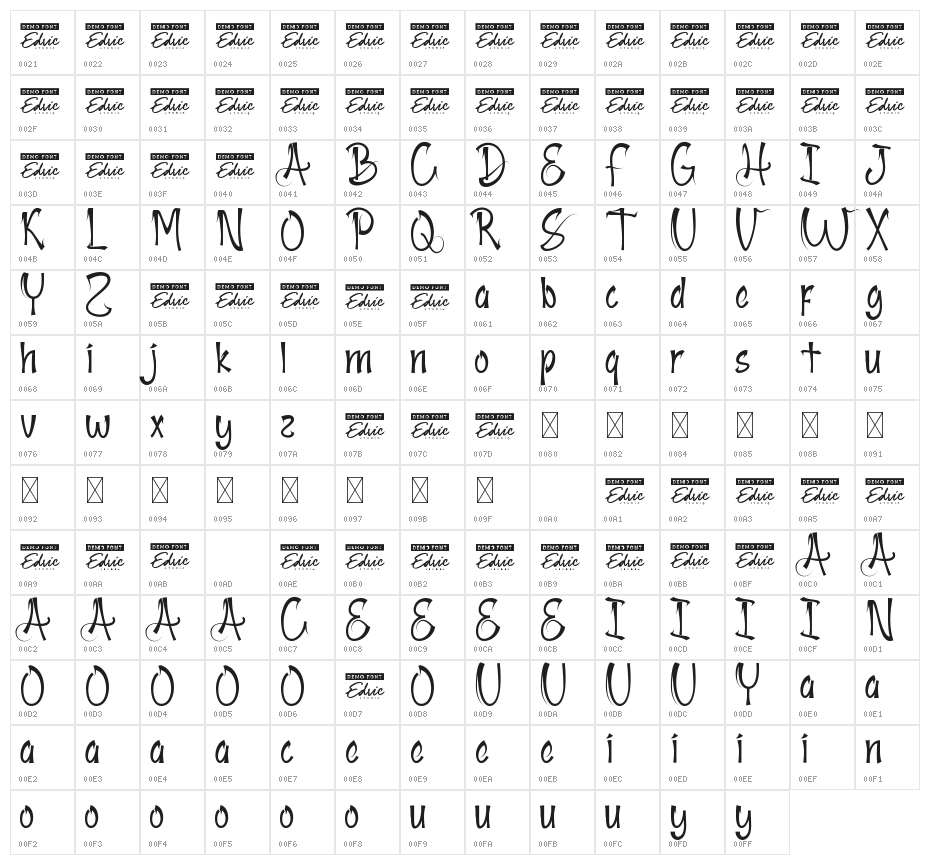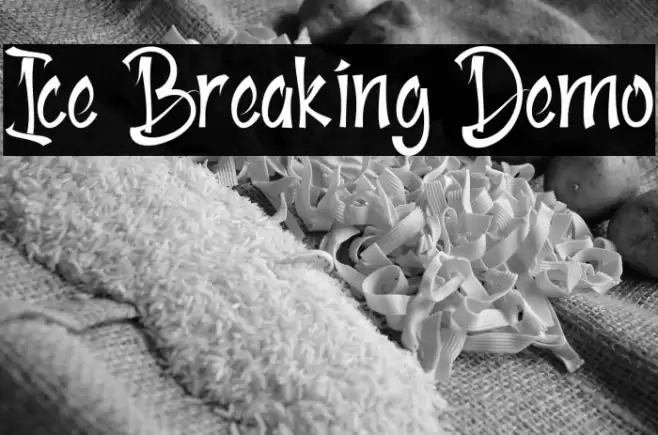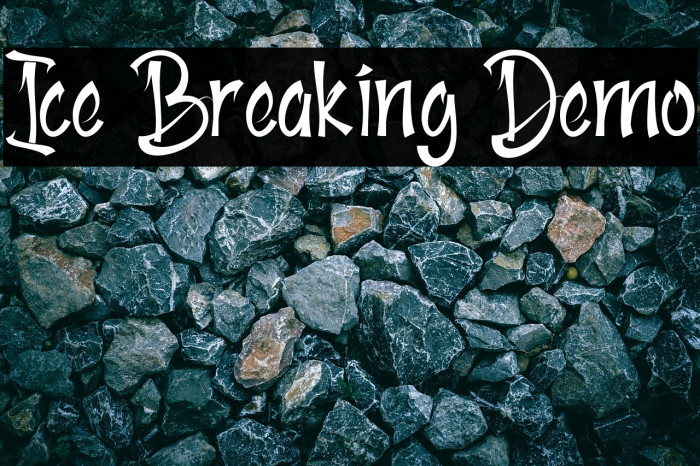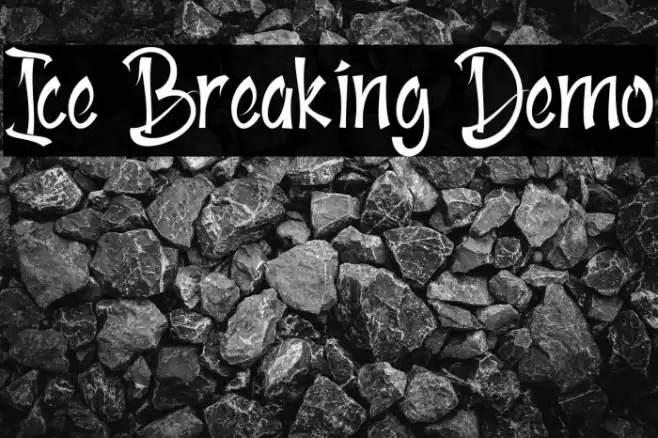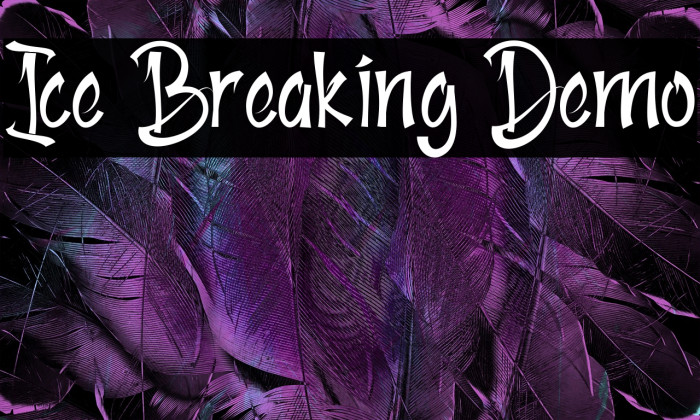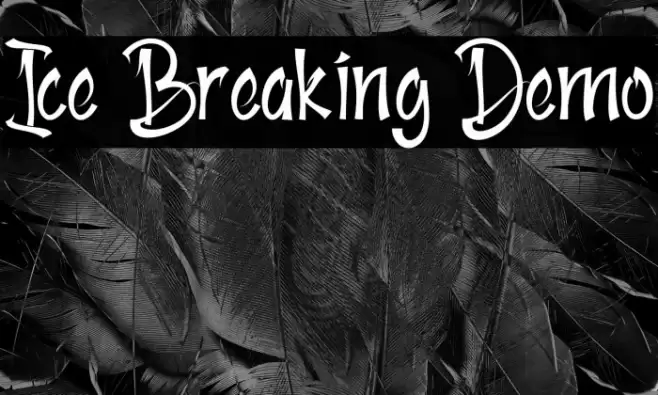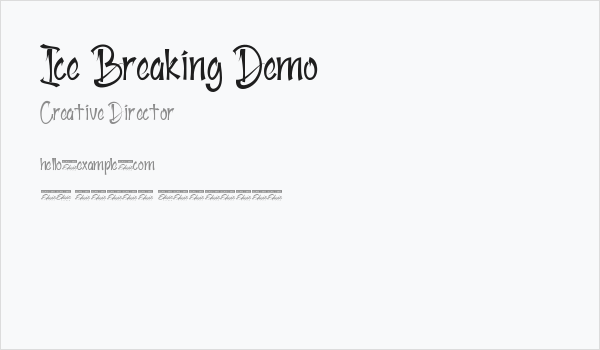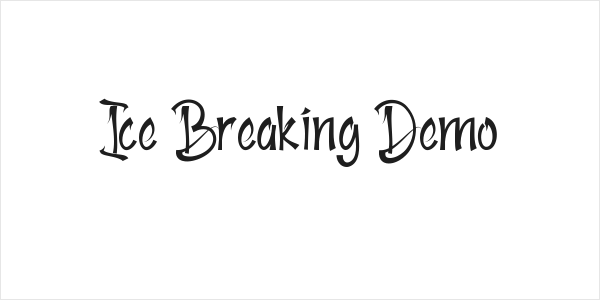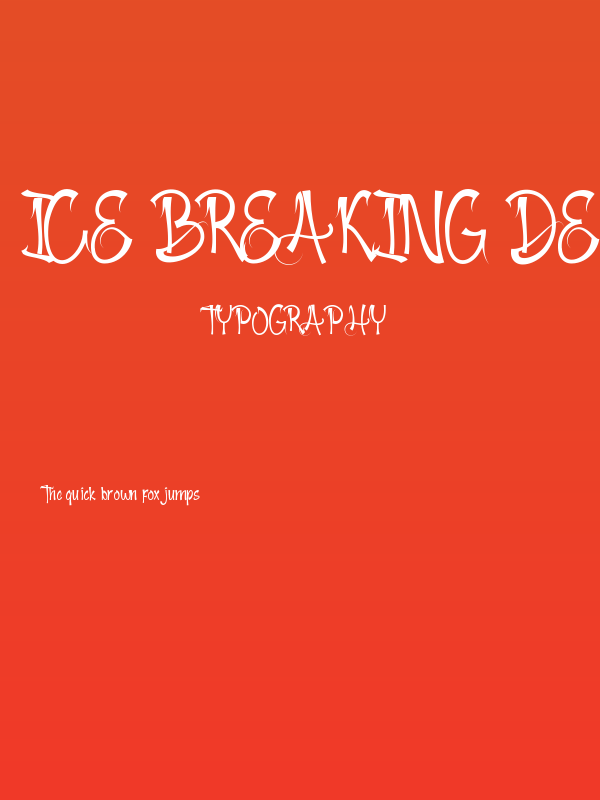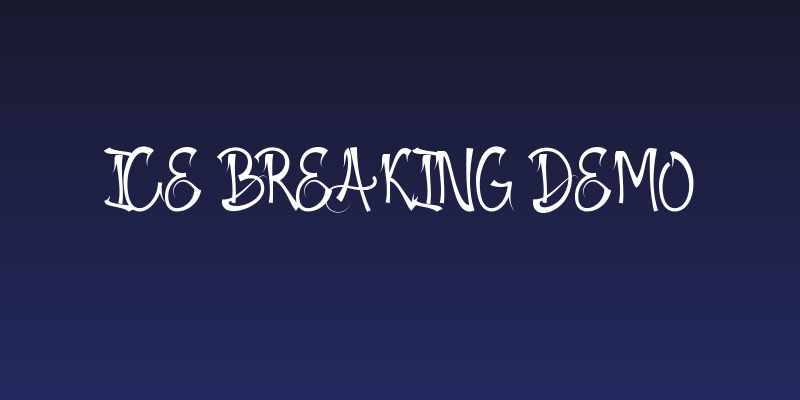
Ice Breaking Demo Font
Ice Breaking Demo Description
This font features a dynamic and expressive style, characterized by its bold, sweeping curves and sharp angles. The uppercase letters exhibit a playful yet elegant flair, with exaggerated serifs and unique terminal strokes that add a sense of movement. The lowercase letters maintain this lively aesthetic, offering a harmonious balance between readability and artistic expression. The font's overall appearance is both modern and whimsical, making it suitable for creative projects that require a touch of personality. Its distinctive style is further enhanced by the varying stroke widths, which provide a moderate contrast and contribute to its eye-catching appeal.
| Overall Style | Modern, Whimsical |
| Proposed Projects | Ideal for branding, posters, invitations, and any design that requires a playful yet sophisticated touch. |